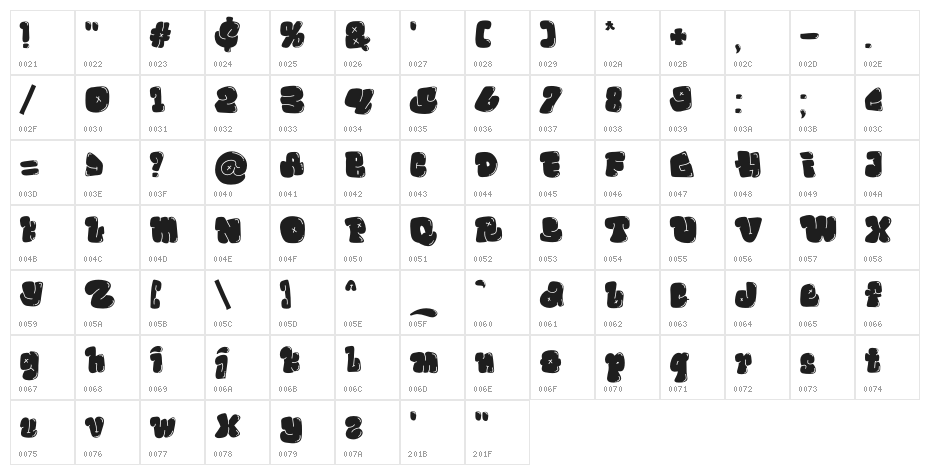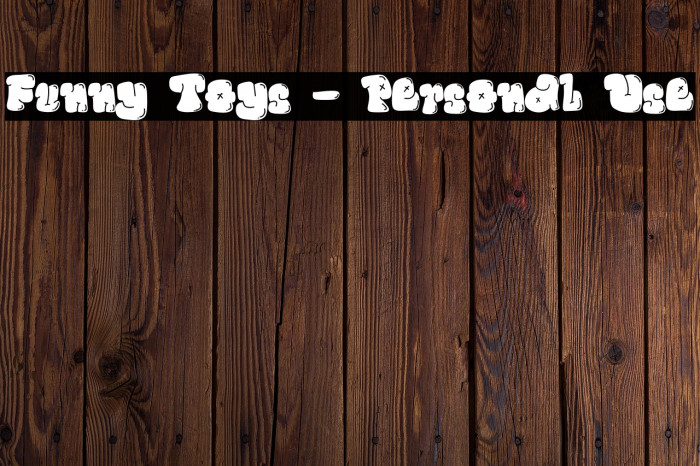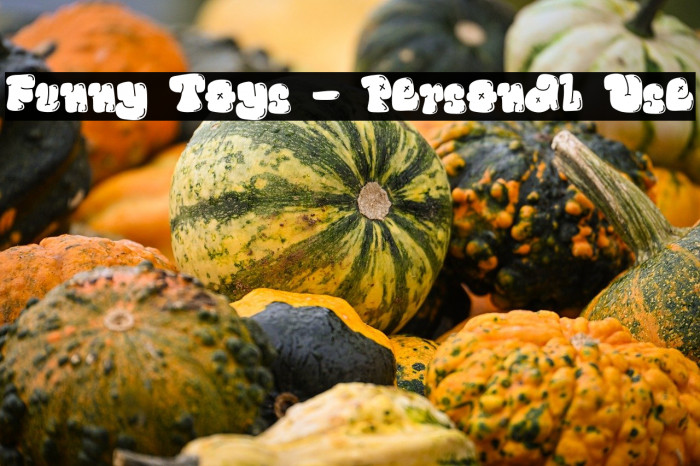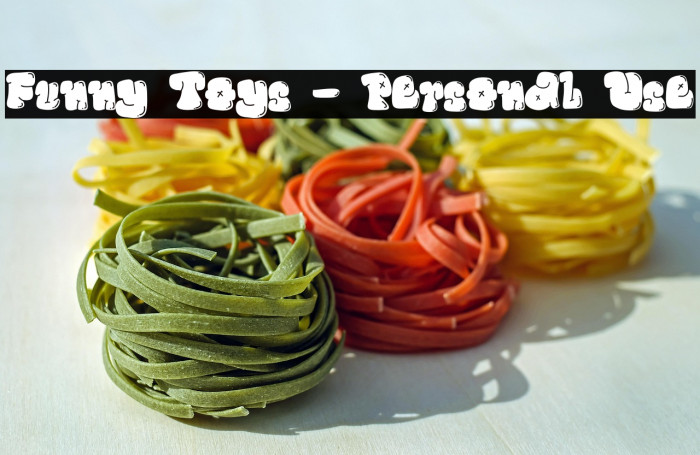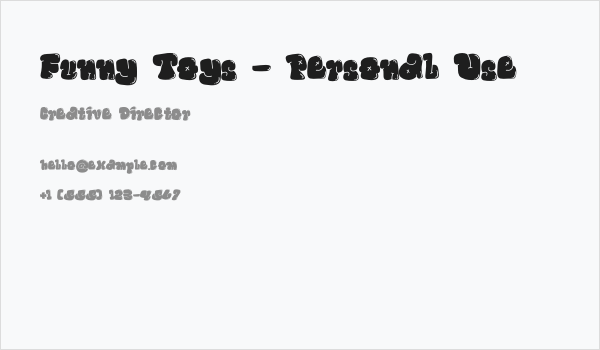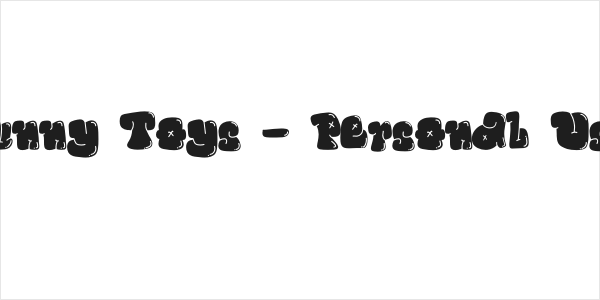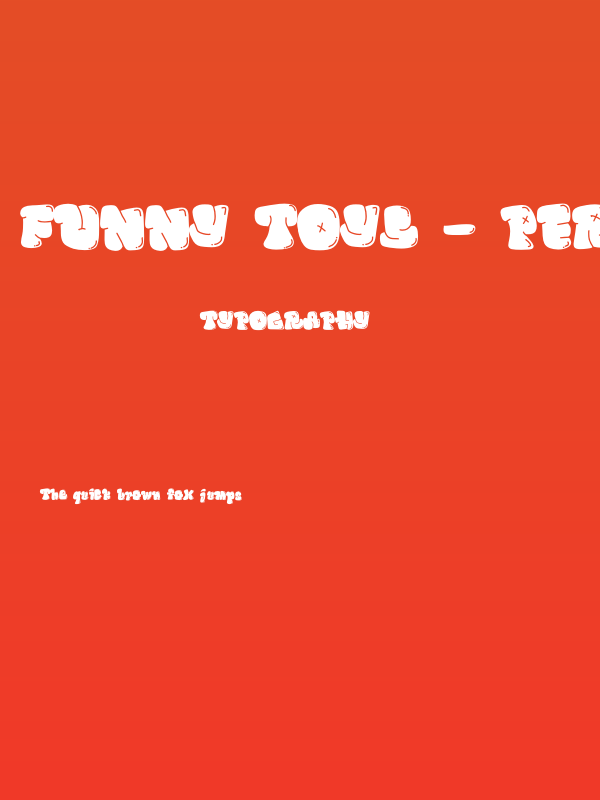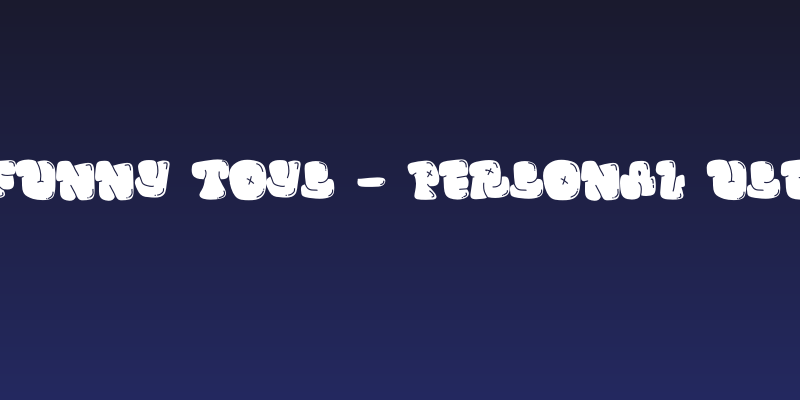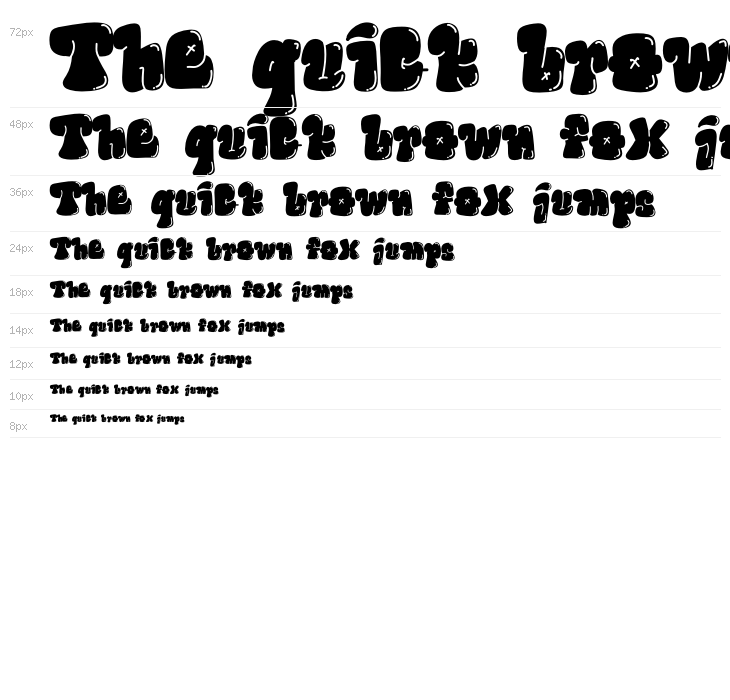
Funny Toys - Personal Use Font
Funny Toys - Personal Use Description
This playful and whimsical font features bold, rounded characters with a bubbly appearance. Each letter is designed with a sense of fun and creativity, incorporating irregular shapes and a slightly uneven baseline that adds to its charm. The font has a cartoonish style, making it ideal for projects that require a lighthearted and informal touch. The characters are closely packed, enhancing the overall playful aesthetic. The numbers and special characters maintain the same lively design, ensuring consistency throughout the font.
| Use Case | Logos, Posters, Children's materials |
| Proposed Projects | Ideal for children's books, toy packaging, party invitations, and playful branding. |